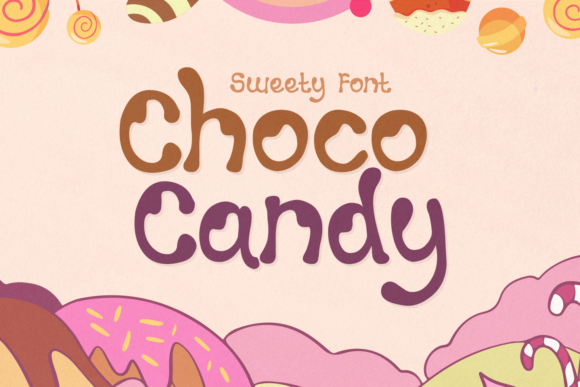
Journey into the world of Choco Candy Font, where charm and playfulness dance together in perfect harmony. This captivating display font, crafted by the skilled hands of zeenesia, is more than just a collection of letters; it's an invitation to embark on an adventure of creativity and self-expression.
Step into a realm where letters transform into delightful treats, each character a burst of sweetness that will ignite your imagination. Choco Candy Font is not just a font; it's a gateway to a world where your designs come alive, where every word carries the weight of joy and whimsy.
Picture this: a children's activity book adorned with the Choco Candy Font. The letters, plump and inviting, beckon little hands to explore the wonders of reading and writing. The playful curves and vibrant energy of the font create a welcoming atmosphere that makes learning feel like an adventure.
Or envision a school project that captures the essence of childhood dreams. The Choco Candy Font dances across the page, transforming ordinary words into extraordinary creations. Its chunky letters, reminiscent of delicious treats, add a touch of magic to presentations, reports, and posters.
The Choco Candy Font is not limited to the realm of education; it's a font that thrives in the world of design. Its versatility shines through in logos, branding, and social media graphics. The Choco Candy Font adds a touch of whimsy to invitations, greeting cards, and party supplies.
With its playful spirit, the Choco Candy Font breathes life into any project it adorns. It's a font that speaks to the child within us, reminding us of the joy and wonder that lie in the simplest things. So, why settle for ordinary fonts when you can embrace the extraordinary with Choco Candy Font?